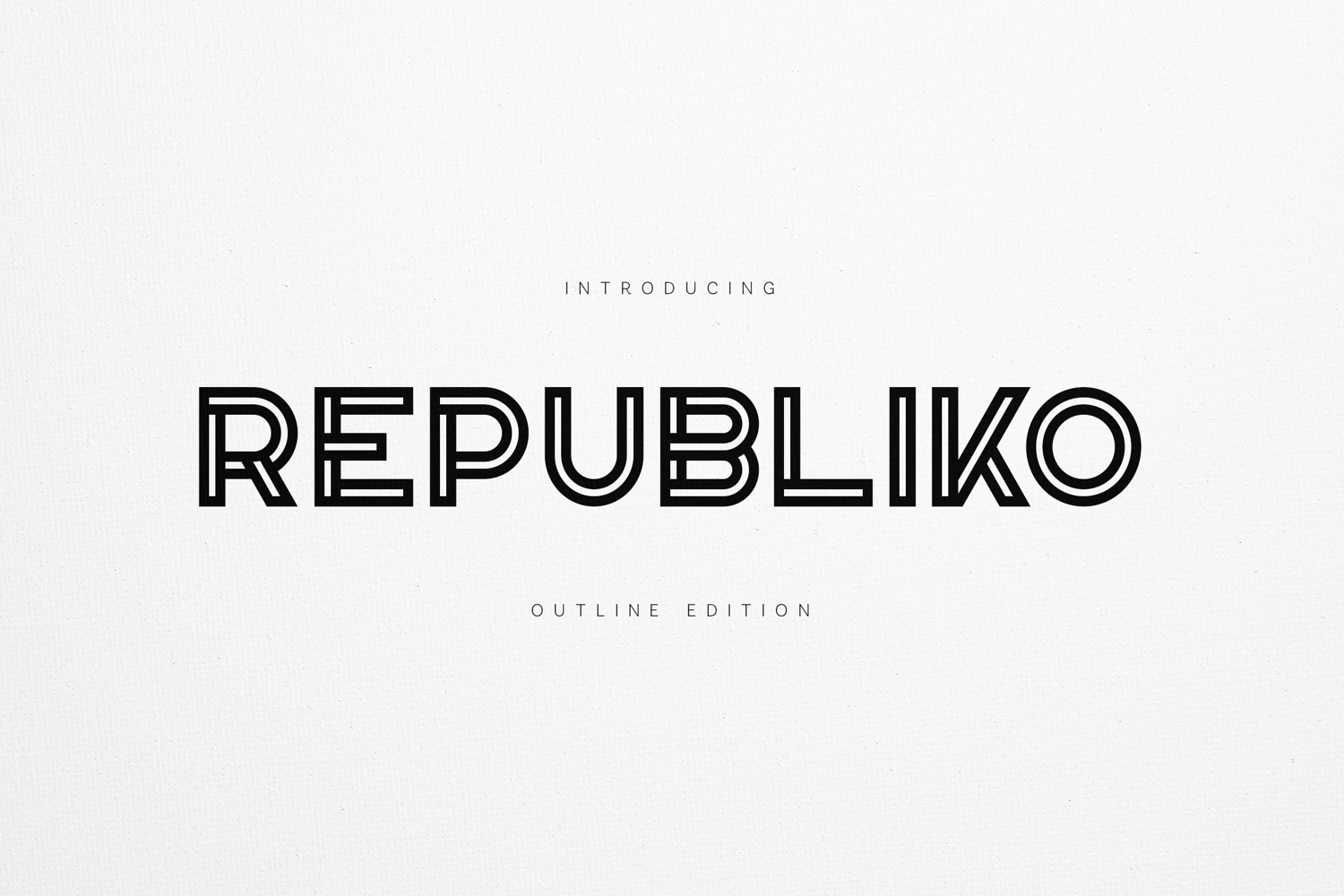
Republiko Outline Retro Display Font
Republiko Outline is a bold geometric display font inspired by retro futurism, modernist signage, Art Deco architecture, and vintage neon typography. Built entirely from clean outline letterforms, it combines timeless geometric construction with a contemporary aesthetic that feels both nostalgic and forward-thinking.
Its distinctive double-line design creates strong visual impact while maintaining excellent readability, making it perfect for logos, branding, posters, packaging, headlines, editorial layouts, album covers, merchandise, social media graphics, and marketing materials.
The font features uppercase and lowercase characters, numerals, punctuation, multilingual language support, and carefully crafted geometric forms that bring a unique architectural character to every design.
Whether you're creating a retro-inspired brand identity, futuristic poster, café logo, music artwork, fashion campaign, or modern packaging design, Republiko Outline delivers a striking visual presence with a clean and memorable style.